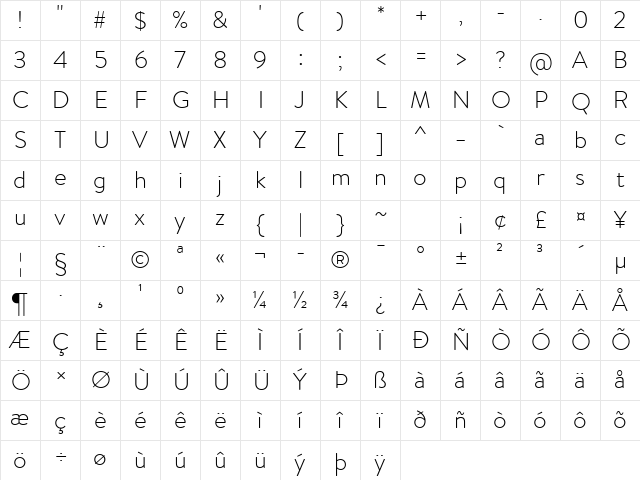
Brandon Text Light Regular
Foundry: Hannes von Doehren
Designer: Hannes von Doehren
Design Context for Brandon Text Light
Brandon Text Light is a composed and adaptable typeface that performs quietly and consistently across a wide range of design contexts. Its slender proportions lend an understated elegance to any composition.